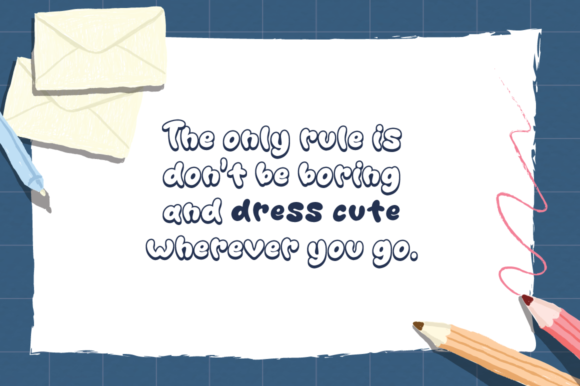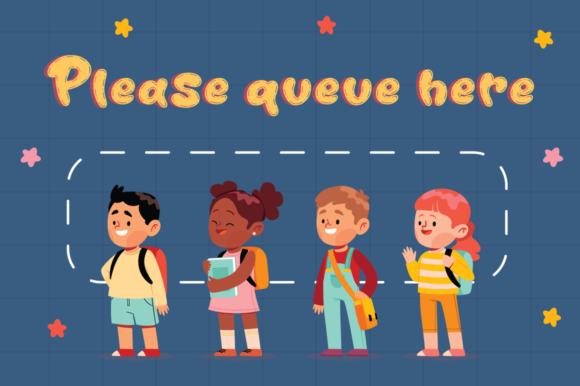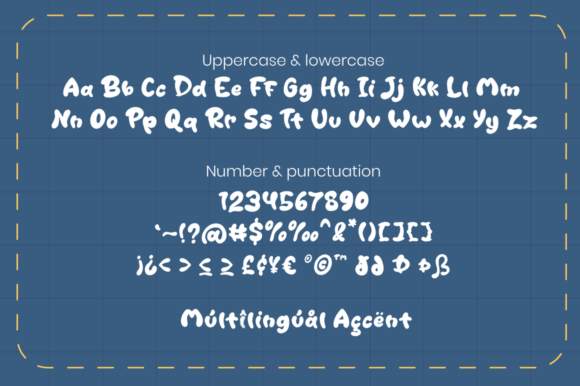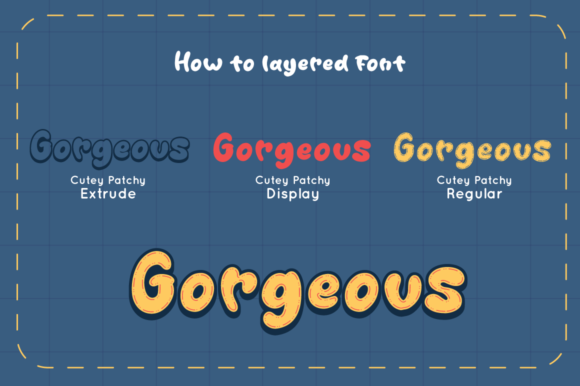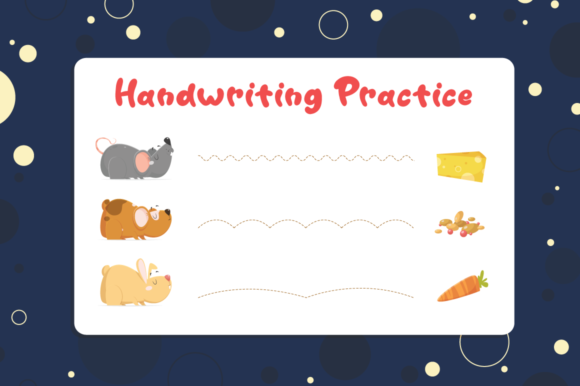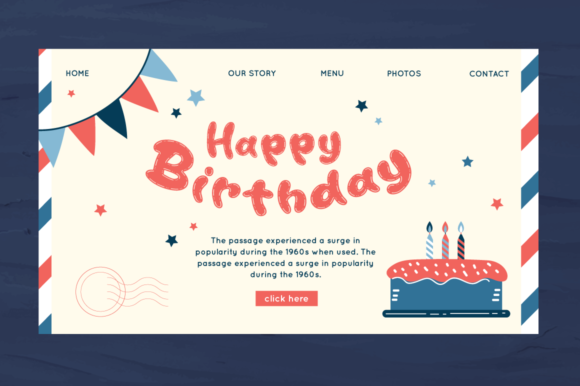
Introducing Cutey Patchy Font: The Perfect Choice for Fun and Creative Projects
Are you a designer, crafter, or educator looking for a font that embodies playfulness and authenticity? Look no further than Cutey Patchy Font! This sweet and friendly display font is perfect for any children activity or school project that requires a touch of whimsy and fun.
What is Cutey Patchy Font?
Cutey Patchy Font is a unique and charming display font that is designed to bring a smile to your face. Its playful and irregular shape makes it perfect for adding a personal touch to your designs, crafts, and educational materials. Whether you’re creating a children’s book, a school poster, or a craft project, Cutey Patchy Font is sure to delight your audience.
Key Features of Cutey Patchy Font
- Playful and Whimsical Design: Cutey Patchy Font features a playful and irregular shape that adds a touch of whimsy to your designs.
- Sweet and Friendly Appearance: The font’s sweet and friendly appearance makes it perfect for children’s activities, school projects, and craft projects.
- Highly Readable: Despite its playful design, Cutey Patchy Font is highly readable, making it perfect for use in a variety of applications.
- Multilingual Support: Cutey Patchy Font supports multiple languages, making it a great choice for designers and educators working with international audiences.
Uses for Cutey Patchy Font
Cutey Patchy Font is a versatile font that can be used in a variety of applications, including:
- Children’s Books and Stories: Add a touch of whimsy to your children’s book or story with Cutey Patchy Font.
- School Posters and Flyers: Create eye-catching posters and flyers for school events and activities with Cutey Patchy Font.
- Craft Projects: Add a personal touch to your craft projects, such as handmade cards, gift tags, and scrapbook pages.
- Educational Materials: Use Cutey Patchy Font to create engaging and interactive educational materials, such as worksheets, activity sheets, and educational posters.
Why Choose Cutey Patchy Font?
There are many fonts to choose from, but Cutey Patchy Font stands out for its unique and playful design. Here are just a few reasons why you should choose Cutey Patchy Font for your next project:
- Unique and Playful Design: Cutey Patchy Font features a unique and playful design that will set your project apart from the rest.
- Easy to Read: Despite its playful design, Cutey Patchy Font is highly readable, making it perfect for use in a variety of applications.
- Versatile: Cutey Patchy Font can be used in a variety of applications, from children’s books to school posters and craft projects.
Tips for Using Cutey Patchy Font
Here are a few tips for using Cutey Patchy Font in your projects:
- Use it Sparingly: Cutey Patchy Font is a display font, so it’s best to use it sparingly to add emphasis and visual interest to your project.
- Pair it with Other Fonts: Cutey Patchy Font pairs well with other fonts, such as sans-serif fonts and script fonts.
- Experiment with Colors: Cutey Patchy Font looks great in a variety of colors, so don’t be afraid to experiment and find the perfect color for your project.
| Font Name | Cutey Patchy Font |
| Author | attypestudio |
Cutey Patchy Font is a sweet and friendly display font that is perfect for any children activity or school project. Its playful and irregular shape makes it perfect for adding a personal touch to your designs, crafts, and educational materials. With its highly readable design, multilingual support, and versatility, Cutey Patchy Font is a great choice for designers, crafters, and educators looking for a fun and creative font.